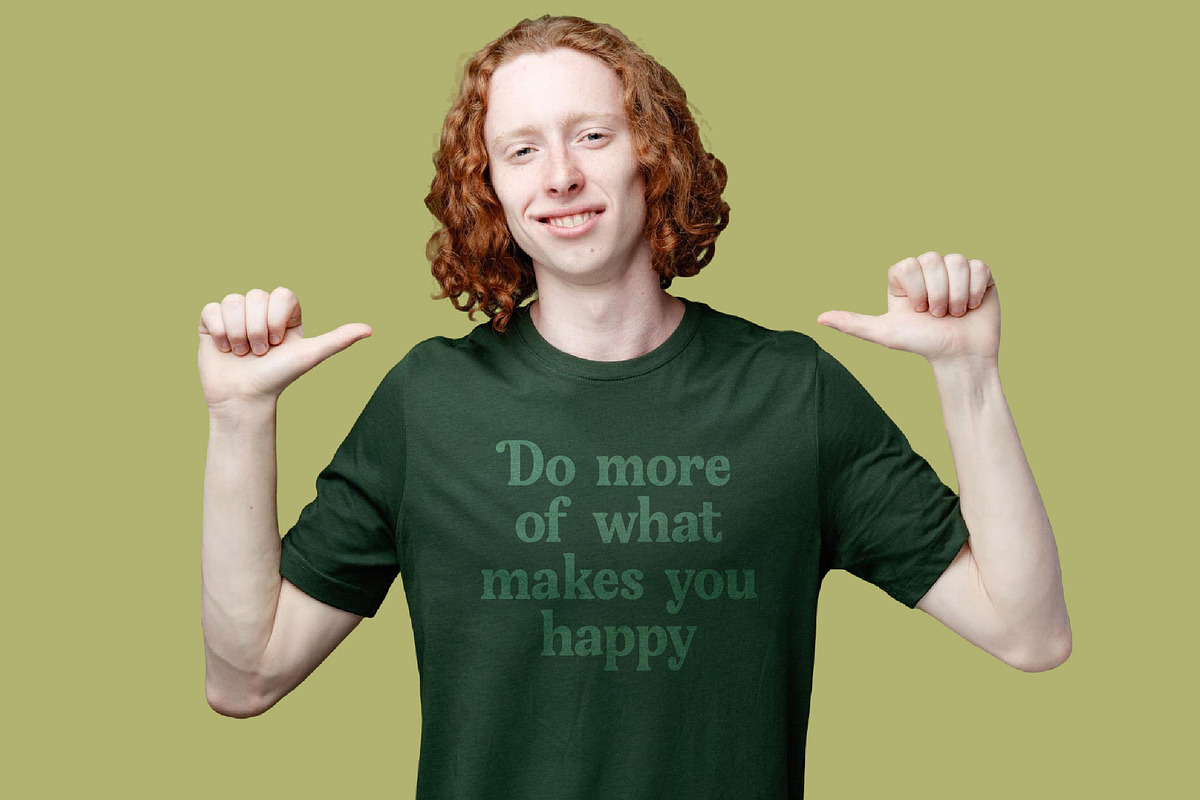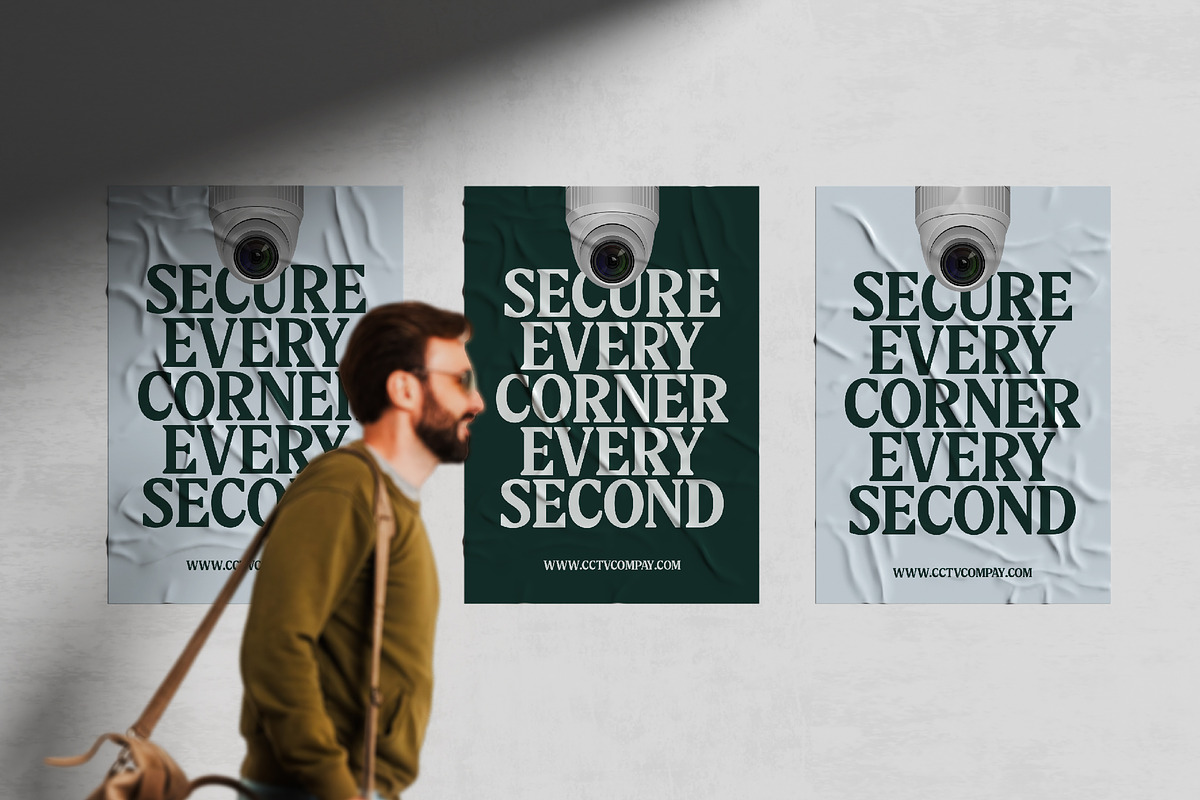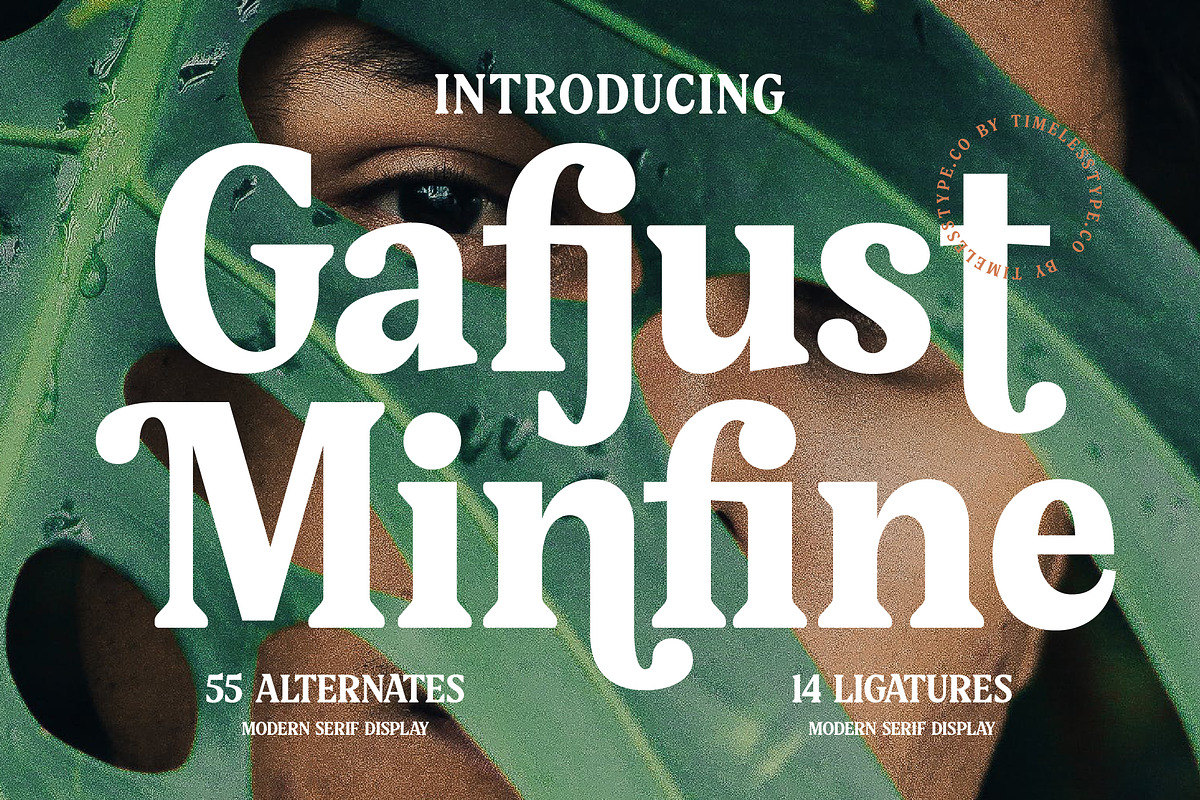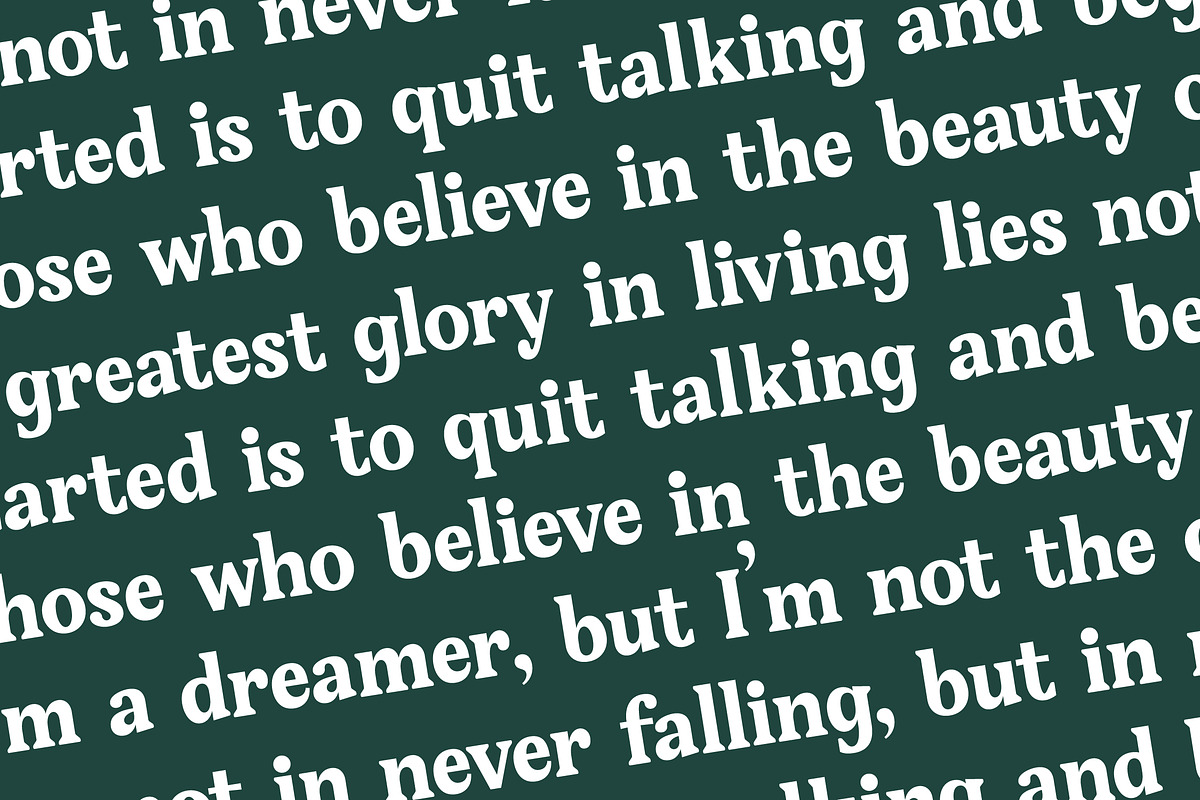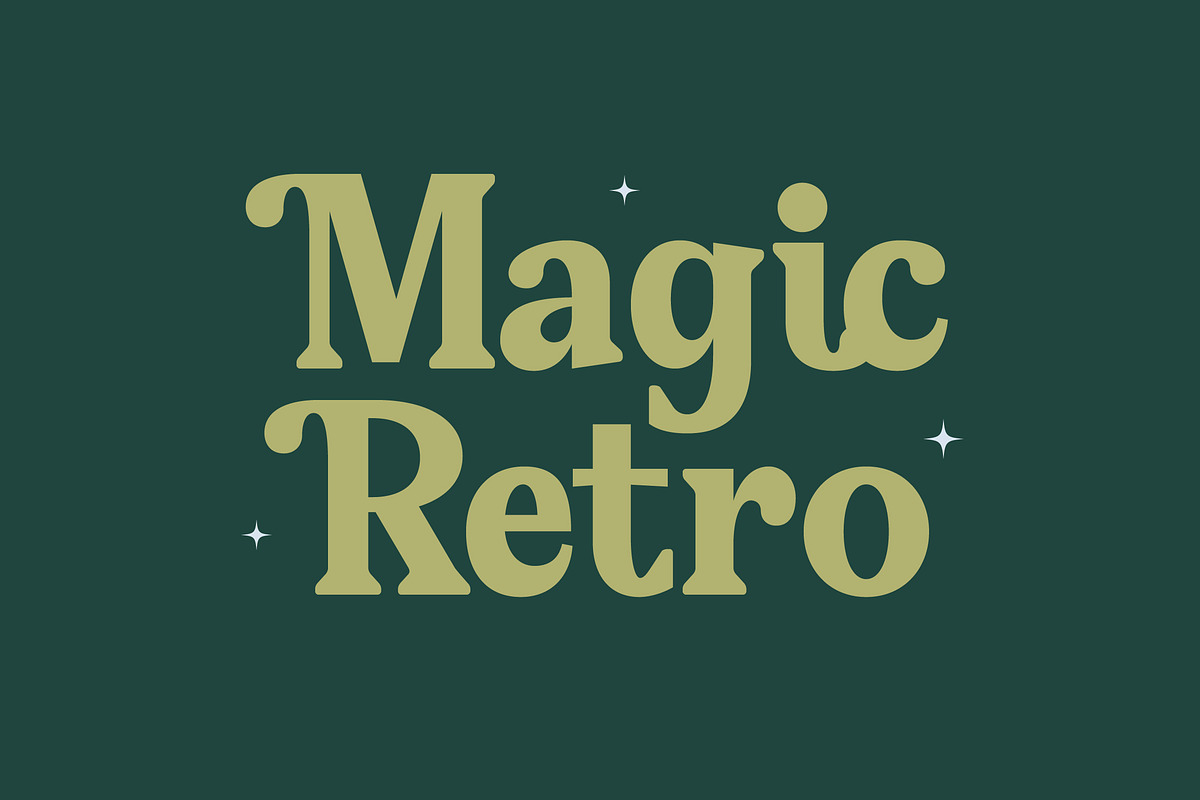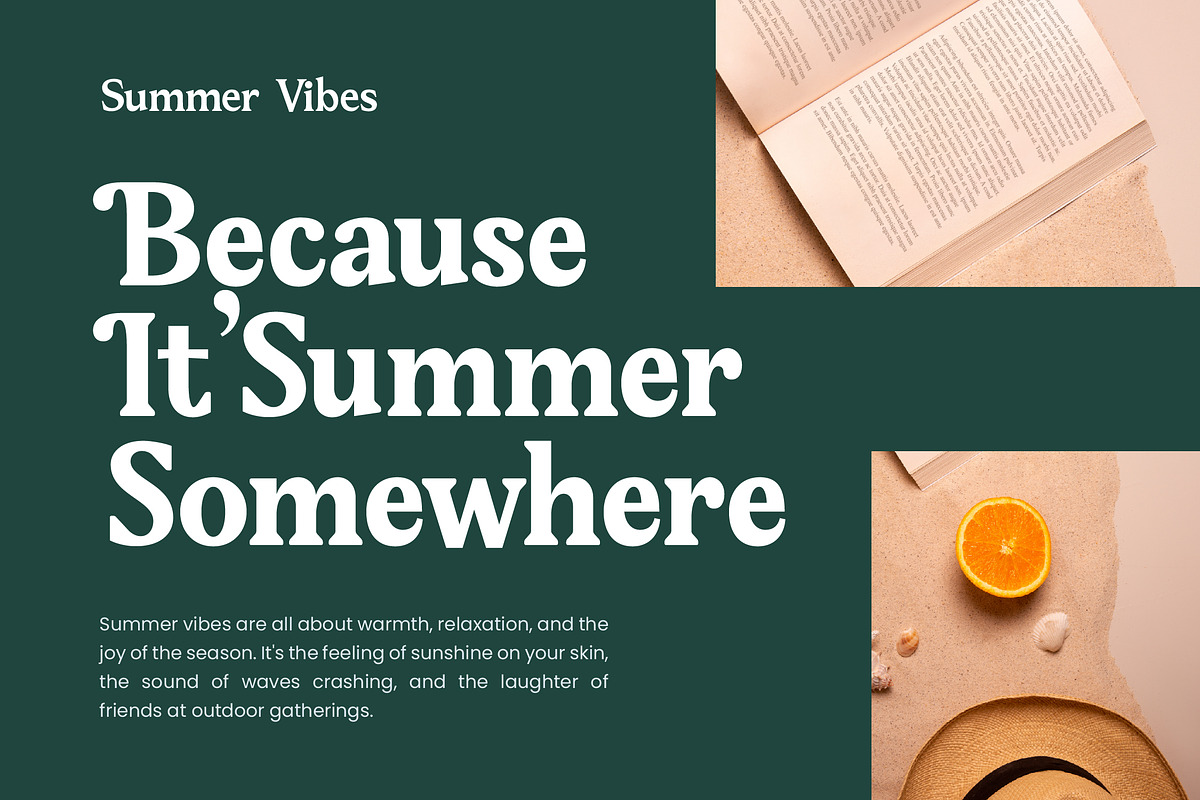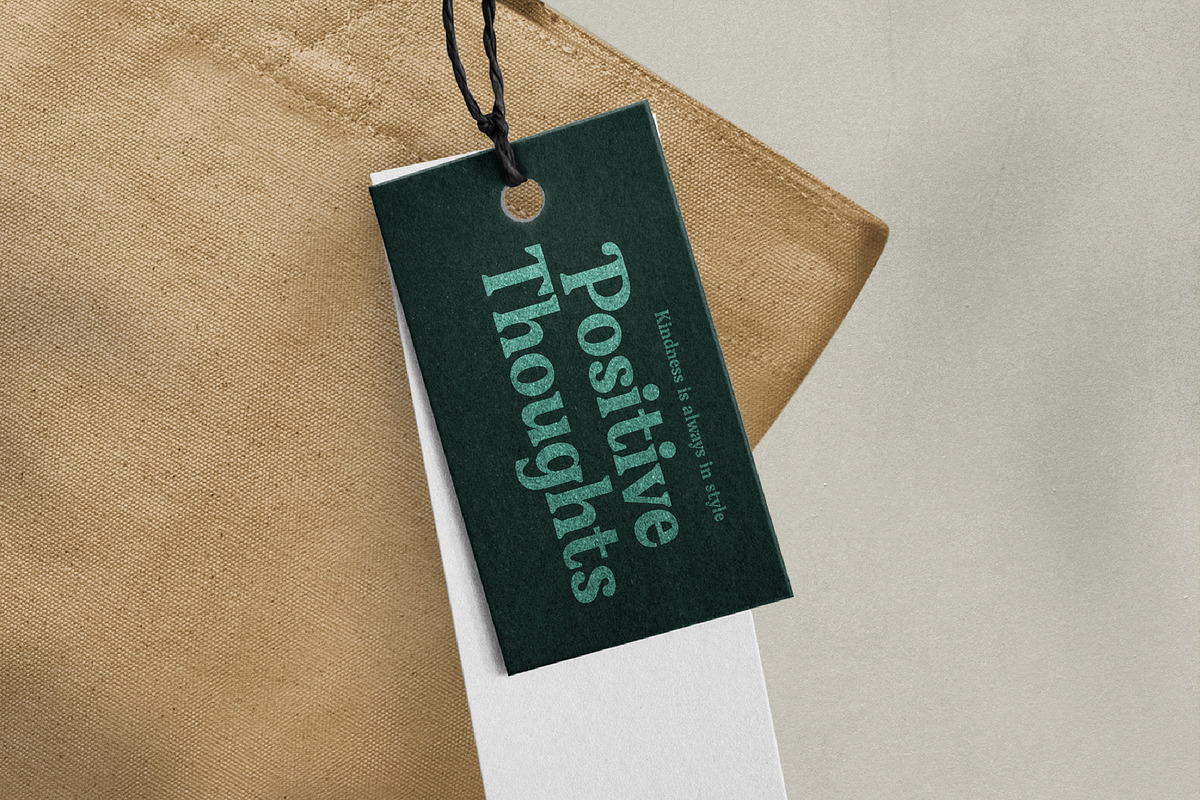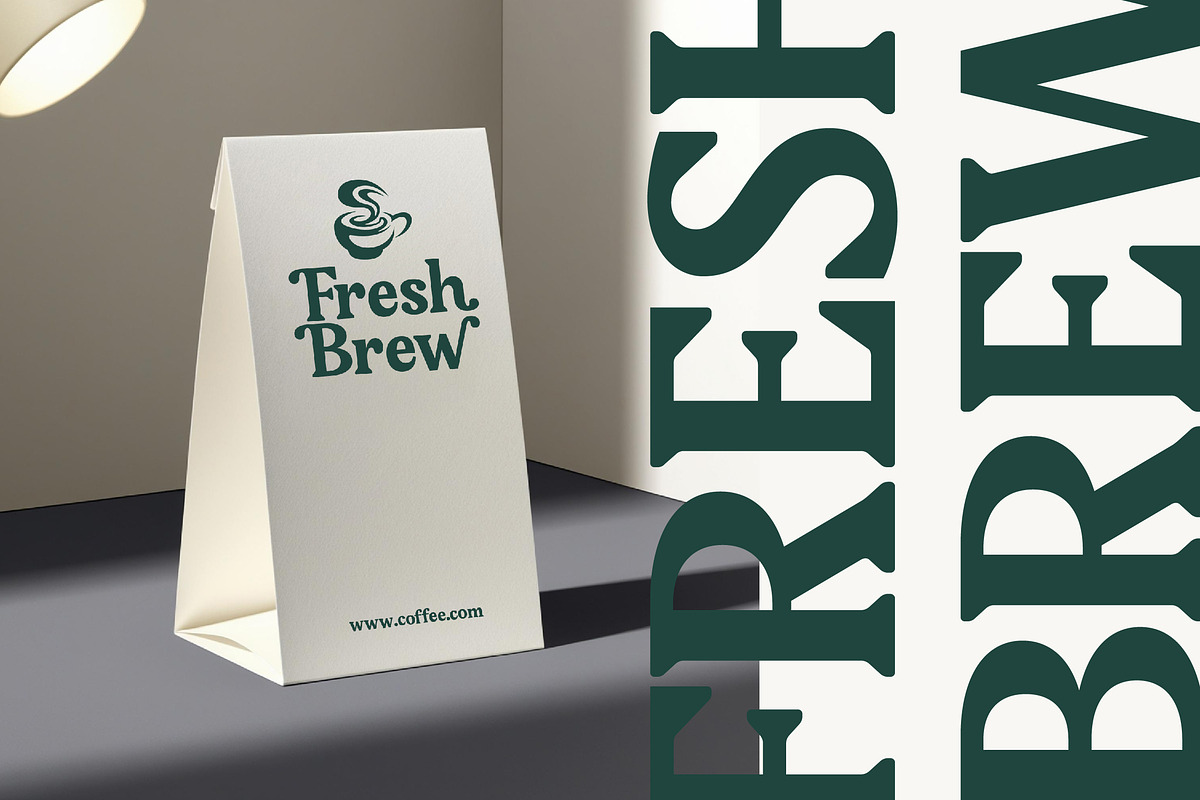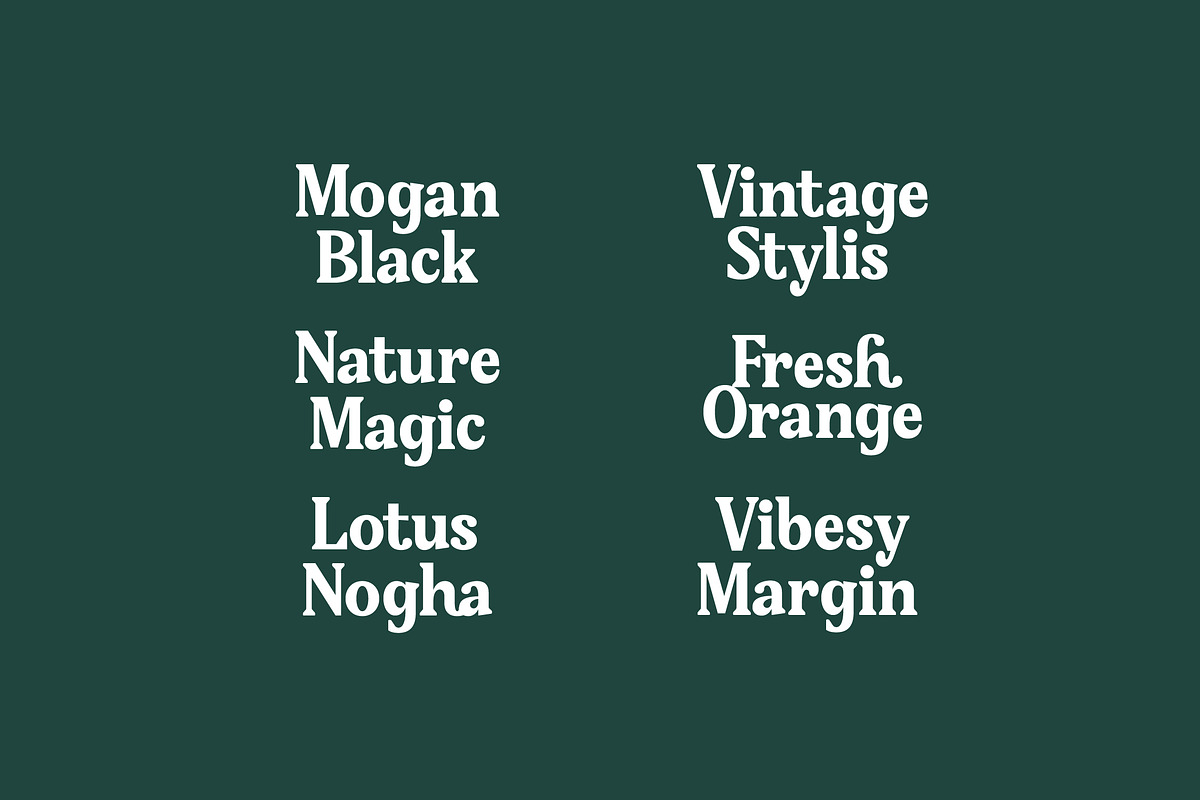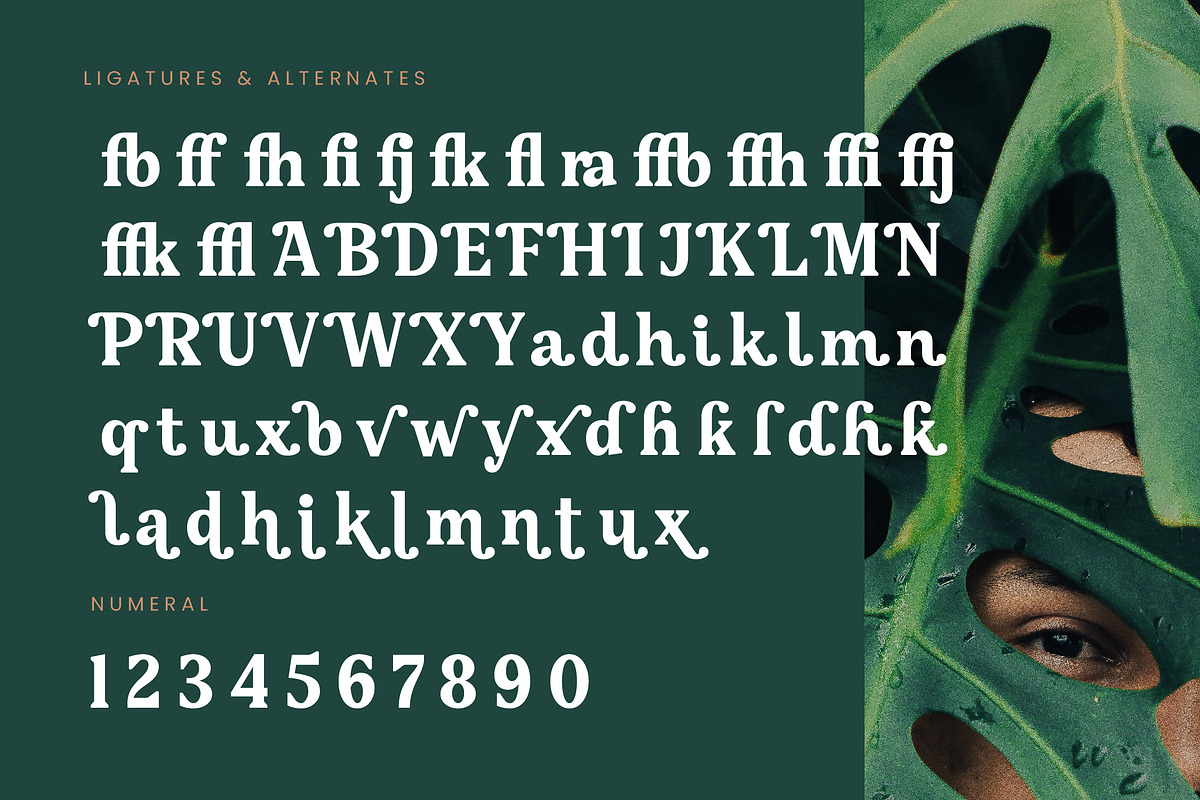
Gafjust Minfine Modern Serif
Gafjust Minfine is a breathtaking display of sophistication, designed to breathe life into every creative canvas it touches. It is the perfect marriage of timeless elegance and contemporary flair, making it an essential addition to your digital type foundry.
Inspired by the fluid shapes found in nature and the structured grace of classic editorial design, this typeface evokes a sense of organic luxury. The interplay between sharp serifs and soft, flowing curves creates a visual atmosphere that is both grounded and ethereal.
This font exudes a refined personality that prioritizes modern serif display aesthetics and luxury typography. Its high-contrast serif construction ensures a bold editorial font presence, delivering a massive branding impact that captures attention instantly.
Tapping into the current modern serif trend, this typeface is a masterclass in editorial display fonts and character-driven typography. It perfectly aligns with the industry shift toward designs that feel bespoke, intentional, and rich with artistic detail.
Whether you are working on logo design for a boutique or developing high-end branding for a wellness retreat, this font delivers. It excels in editorial layouts, luxury packaging, romantic wedding stationery, and avant-garde fashion campaigns.
The package is loaded with technical versatility, featuring 14 unique ligatures and 55 stylistic alternates to customize your look. Full multilingual support and international characters ensure your message reaches a global audience with ease while decorative swashes add that final touch of class.
- Ligature 14 Alternate 55